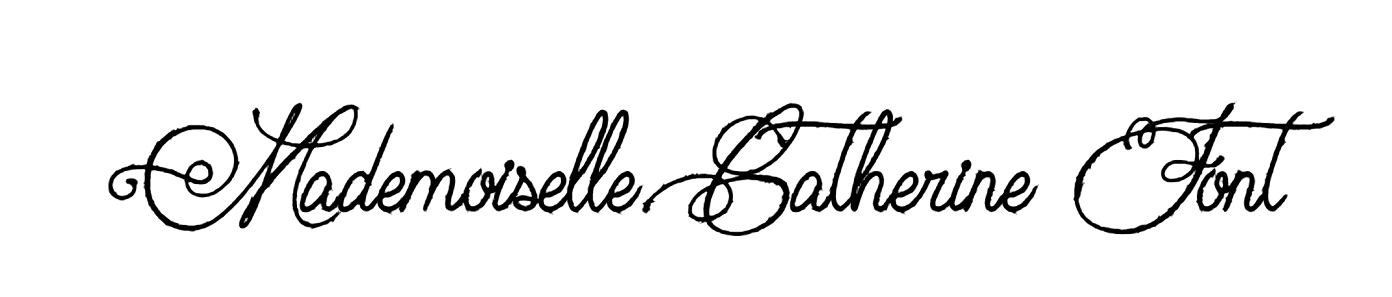
Thomas Boucherie (under his prominent type studio Maelle.K) designed Mademoiselle Catherine, a whimsical, elegant calligraphy script typeface, alongside creator Cataleya as a collaborative artistic concept. Designers highly seek it for projects requiring a fluid, organic handwriting aesthetic that blends traditional cursive structures with modern styling.
Mademoiselle Catherine
Mademoiselle Catherine is a calligraphy font created by Maelle.K. Its flowing, pen-made letters give names and short phrases a personal, polished look. You can download it for free and test it with your own words in the preview above.
- Designer: Maelle.K
- Font styles: 1 (Italic)
- Glyphs: 161
What You Can Type With Mademoiselle Catherine
With complete upper and lowercase letters and all ten digits, Mademoiselle Catherine is ready for real wording, not just a single headline. Common punctuation such as &, ! and ? is included as well. It also has the accented letters you need for Spanish, French, Portuguese and Italian.
Where Mademoiselle Catherine Works Best
Think of Mademoiselle Catherine for wedding invitations, certificates and elegant quotes. Its lowercase letters are small compared to the capitals, so set it a size or two bigger than usual. Script fonts read best in short bursts, so keep it to names, titles and one-line quotes. Skip all caps: script capitals are drawn to start a word, not to fill one.
Who designed Mademoiselle Catherine font?
Does Mademoiselle Catherine support accented letters?
Yes. Mademoiselle Catherine includes the accented letters needed for Spanish, French, Portuguese and Italian, so it works for more than just English.